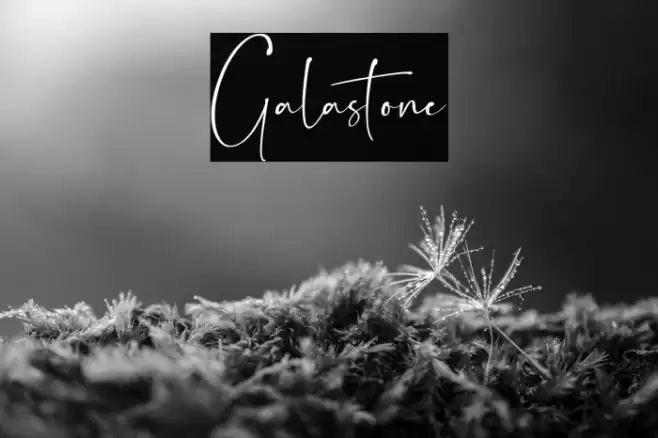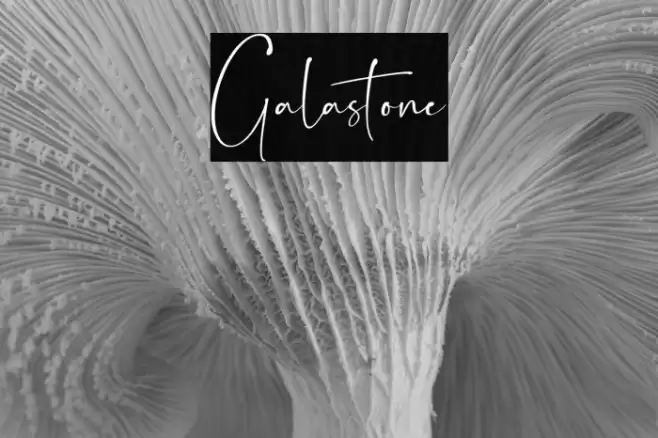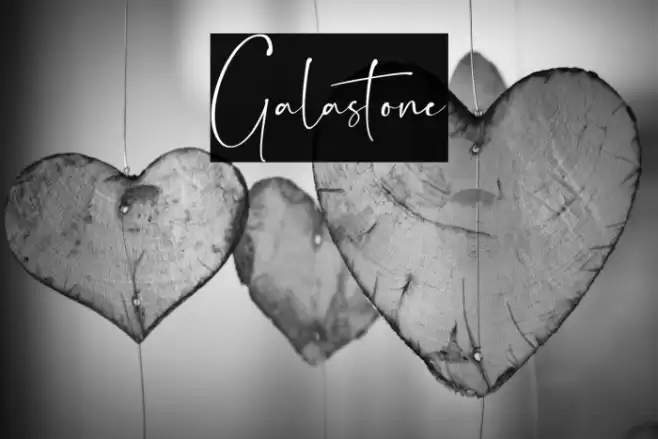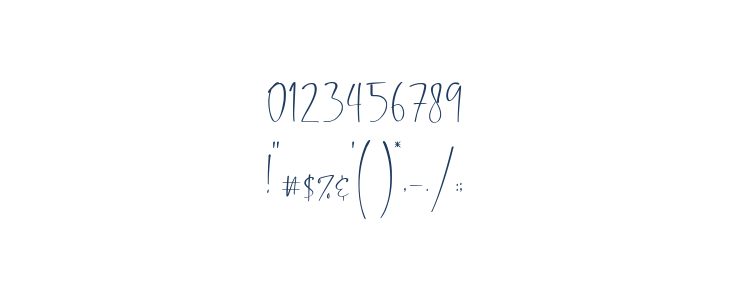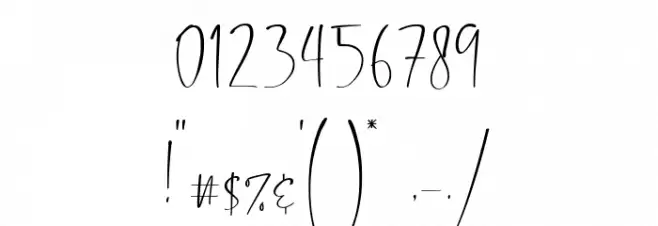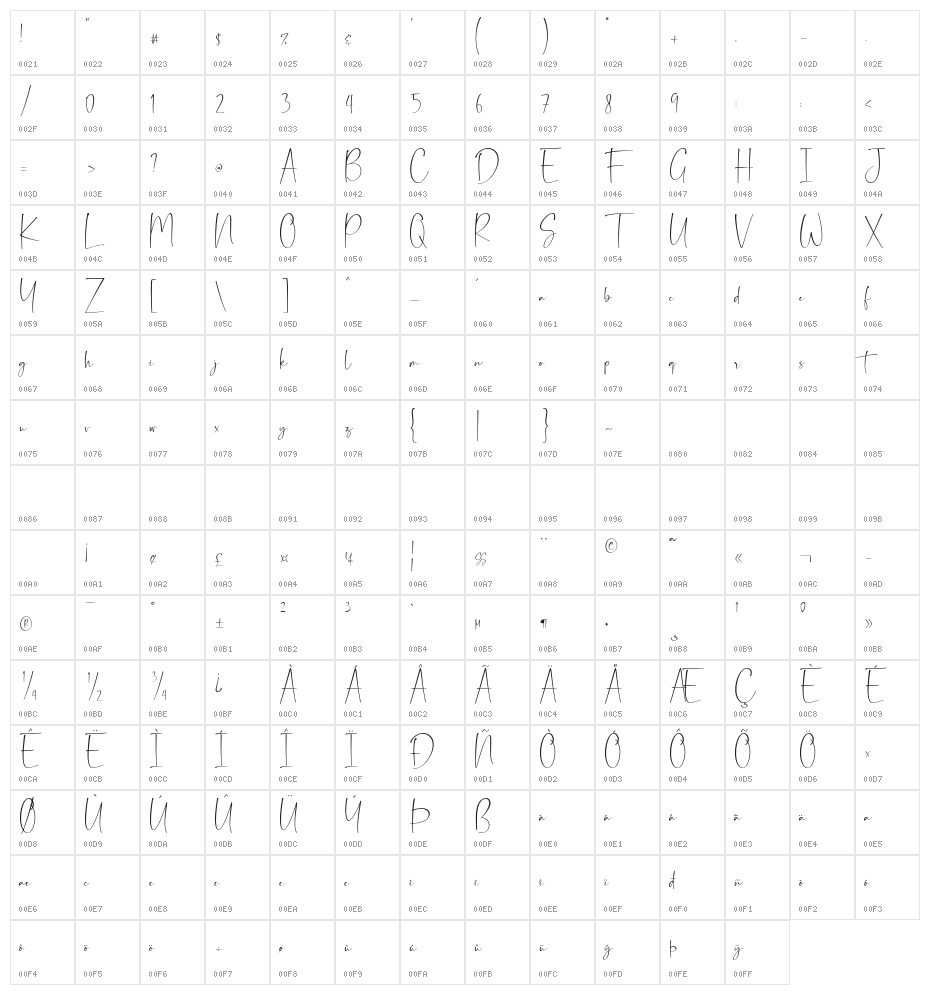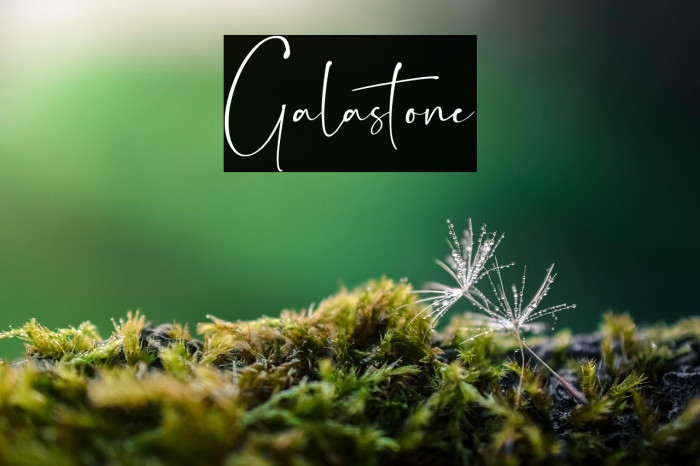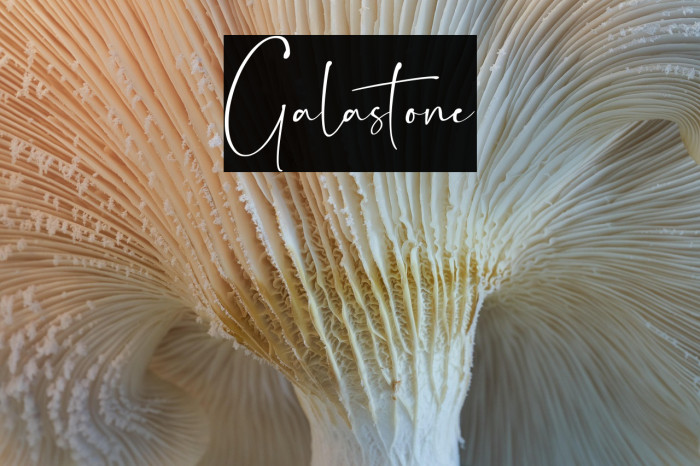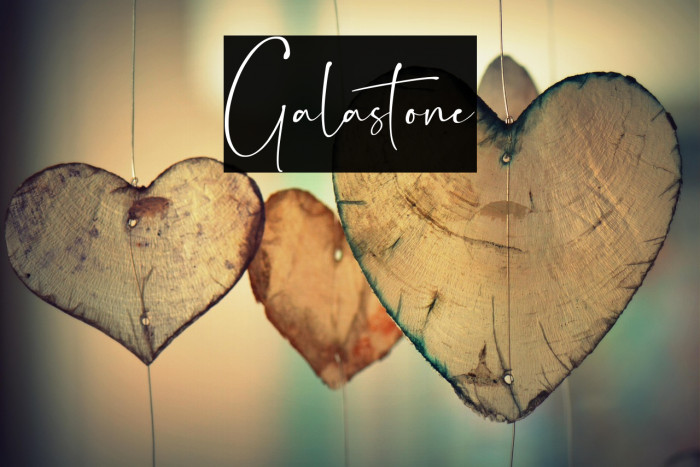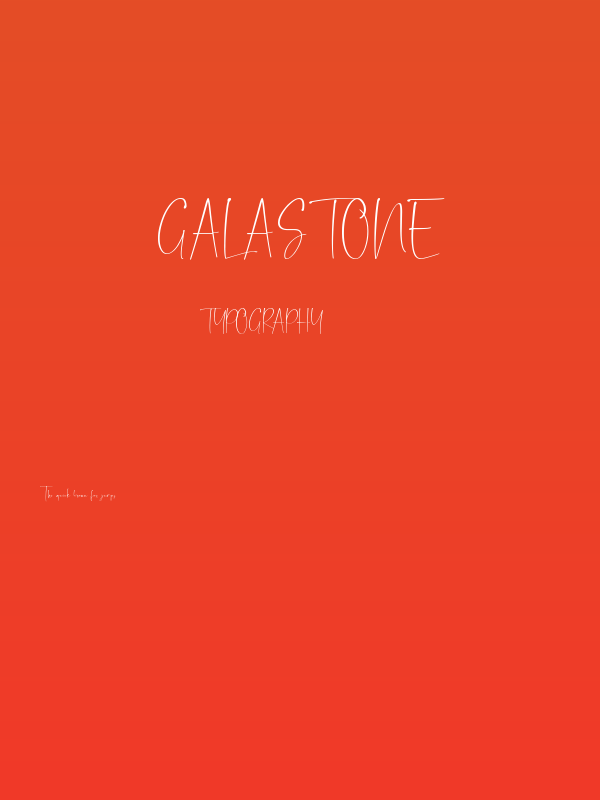
Galastone Font
Galastone Description
This font features a playful and elegant handwritten style, characterized by its thin, flowing lines and slightly irregular letterforms. The uppercase letters are tall and narrow, with a whimsical touch that adds personality and charm. The lowercase letters maintain a consistent flow, enhancing the overall fluidity of the design. Numbers and special characters are crafted with the same delicate strokes, ensuring a cohesive look across all elements. This font exudes a sense of casual sophistication, making it ideal for projects that require a personal and approachable feel.
A playful handwritten font with thin, flowing lines and whimsical letterforms from Regular fonts.
- Proposed Projects: Ideal for wedding invitations, greeting cards, personal branding, and social media graphics.
- Weight: Light
- Overall Style: Casual, Elegant
- Use Case: Logos, Invitations, Social Media